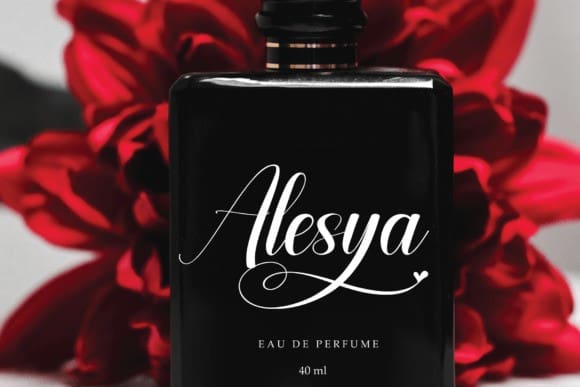
Beautyshop Font
Beautyshop Font is a sweet and friendly handwritten font. Fresh and casual, this font is ideal for writing wedding invitations, cards, or any other design that might need a lovely touch.